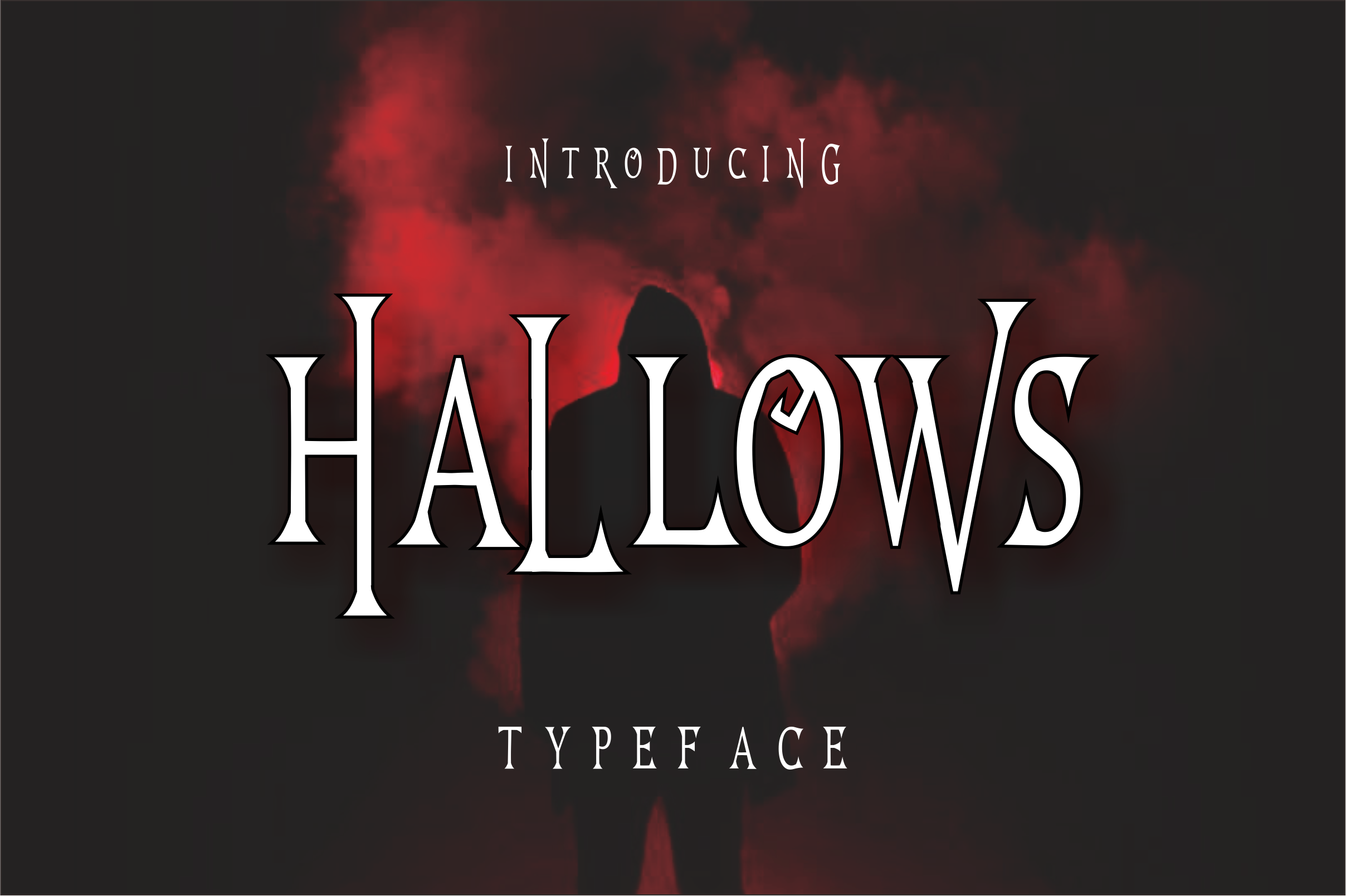
Hallows Typeface
Hallows typeface is a font created to complement your Halloween Party. Characteristic of this fonts will act to create an ambience of fun.
No matter how is your design concept to looking fun. it can be serious, scary, mystical, chilling, dark or light. With Herald typeface, your design will more quieter, relax, enjoy, etc.